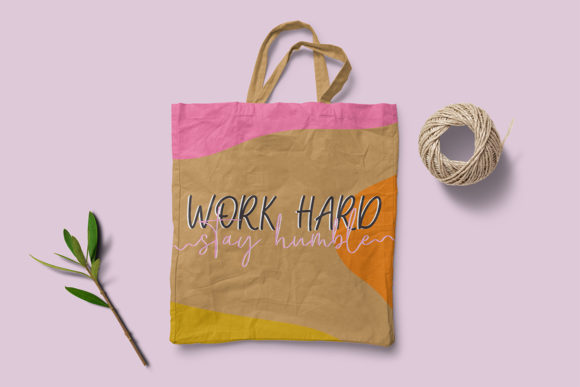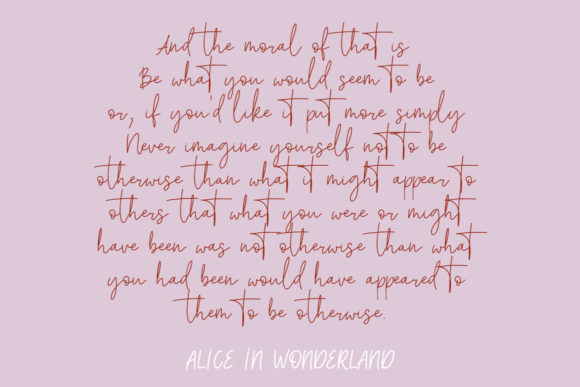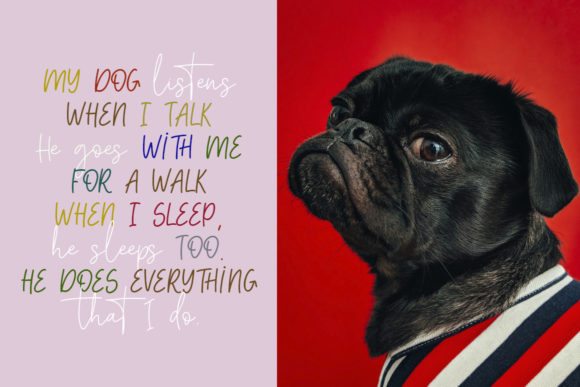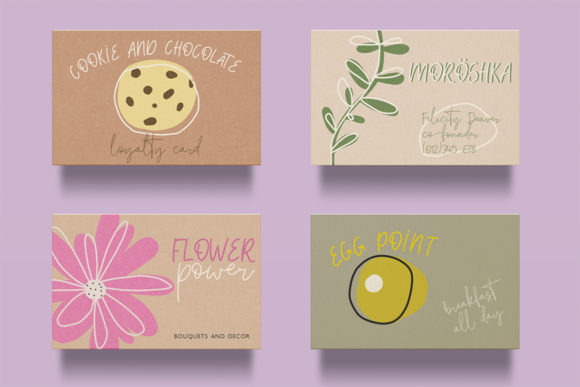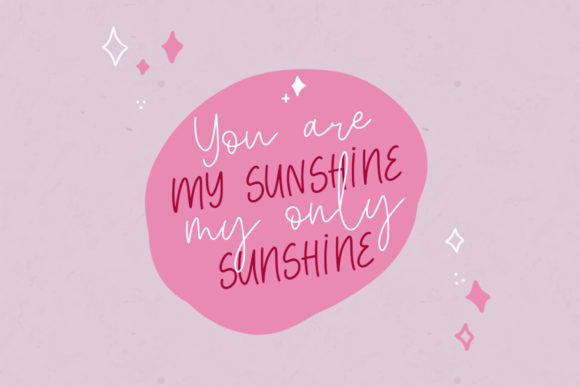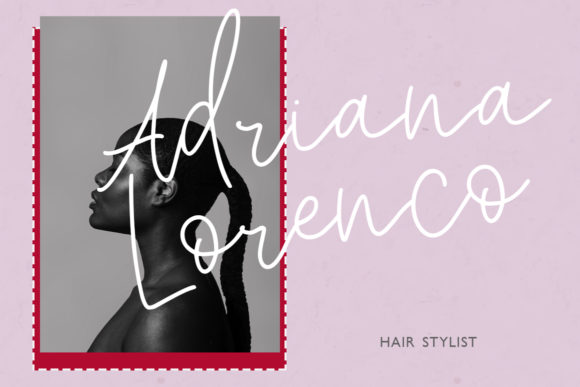
The Blood Orange Duo Font: A Designer’s Dream Come True
I’ll never forget the moment I stumbled upon the perfect font duo for my design project. I was working late, sipping on a cold coffee, and struggling to find the right combination of fonts that would bring my client’s vision to life. That’s when I discovered the Blood Orange Duo Font. It was like a breath of fresh air – a striking, handwritten font duo that instantly elevated my design game. In this article, I’ll share my experience with this amazing font, its features, and how to make the most of it in your designs.
So, what makes the Blood Orange Duo Font so special? Let’s dive into the good stuff and a few quirks I’ve encountered.
- ✨ Perfect pairing: The duo consists of two styles that complement each other beautifully, making it easy to create unique designs.
- ✅ Highly versatile: From crafting elegant headings to creating fun, playful text, this font duo adapts to any design style.
- 🎨 OpenType features: With access to a range of glyphs and stylistic alternates, you can customize your text to fit your project’s tone.
While the Blood Orange Duo Font is incredibly powerful, there are a few things to keep in mind:
- 🤔 Glyph compatibility: Some glyphs might not work seamlessly across all platforms or software. Always test your design before finalizing.
- ⚠️ Overuse: As with any bold font, use it sparingly to avoid overwhelming your design.
The Story Behind Blood Orange Duo Font
The Blood Orange Duo Font was created with the intention of providing designers with a versatile, high-quality font duo that could elevate their designs. Inspired by the beauty of handwritten scripts and the need for flexibility in design, this font duo was crafted to be both elegant and playful. While the actual designer remains a mystery, their passion for typography and design excellence shines through in every detail of this font.
Q: What makes the Blood Orange Duo Font unique?
A: Its perfect pairing of two complementary styles, making it highly versatile for various design projects.
Q: Is the Blood Orange Duo Font suitable for body text?
A: While it’s primarily designed for headings, it can be used for short body text passages where a personal touch is desired.